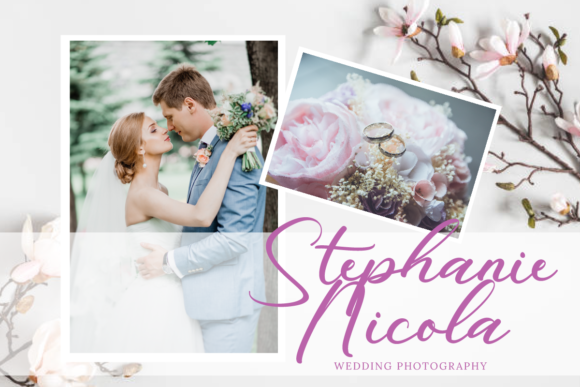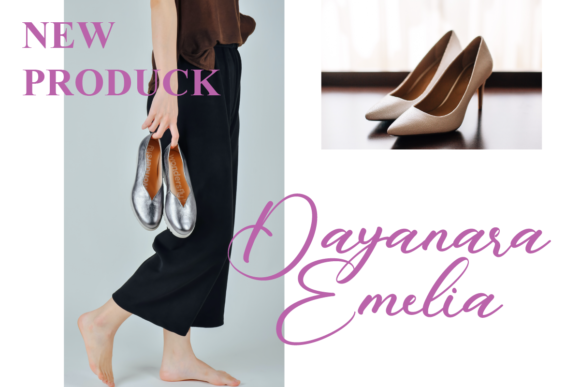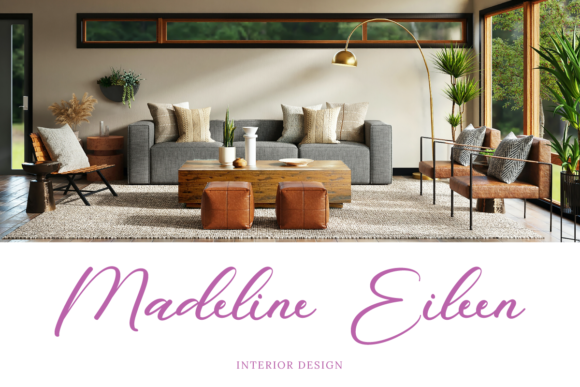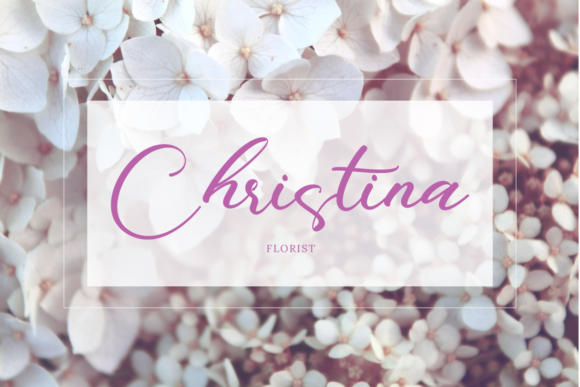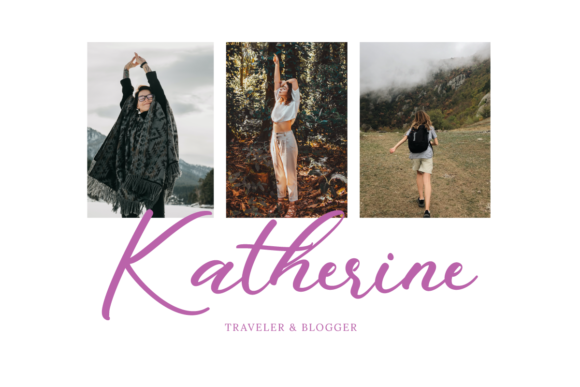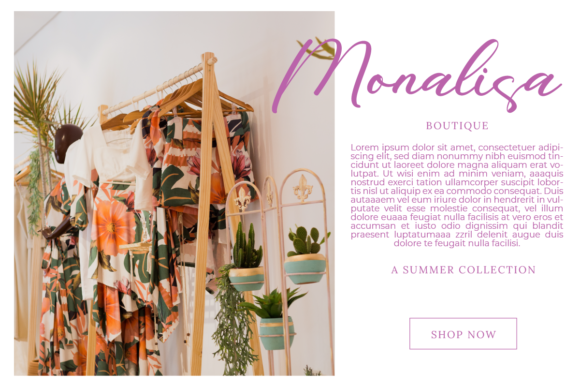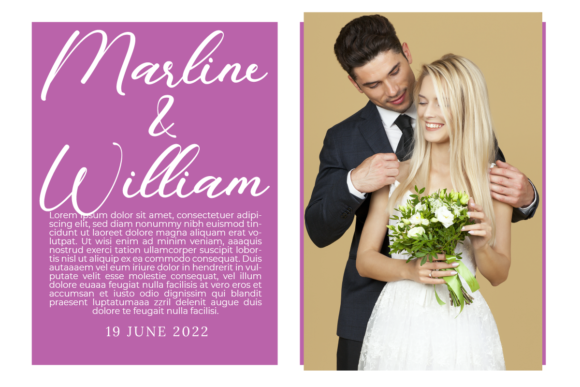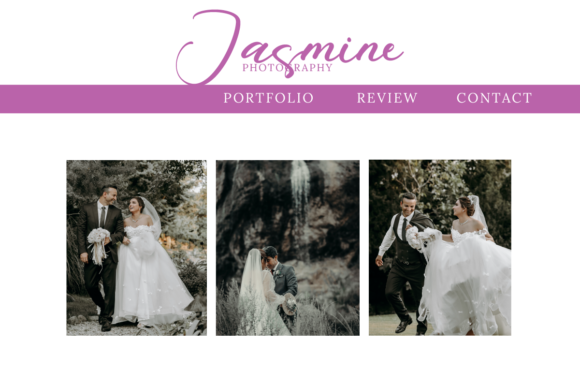
About Sarahi Maribel Font
Sarahi Maribel is a thin lettered and graceful script font. Fall for its ravishing style and use it to create gorgeous wedding invitations, beautiful stationary art, eye-catching social media posts, and much more!